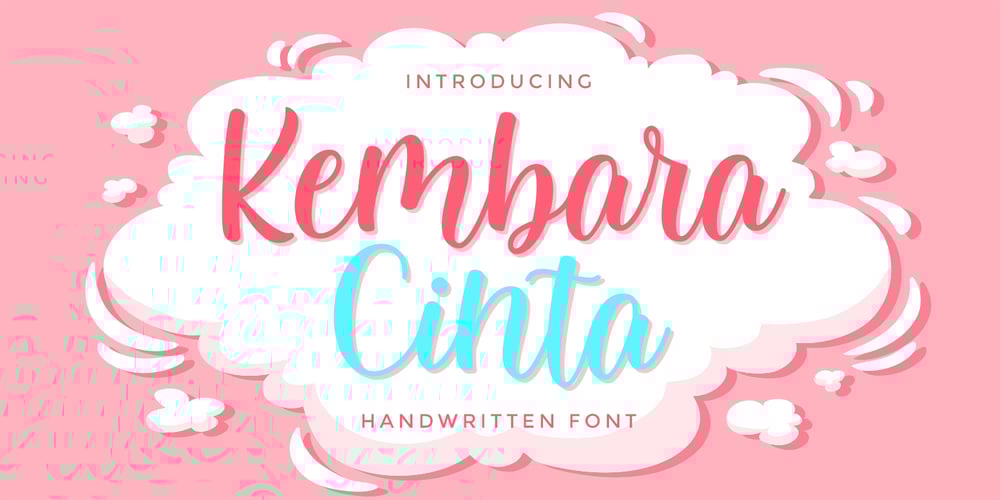
Kembara Cinta Font Family was designed by Fajar Gunawan and published by Fargun Studio. Kembara Cinta contains 1 styles and family package options. Kembara Cinta – a new fresh & modern hand lettered font, decorative characters and a dancing baseline! So beautiful on invitation like handicraft, greeting cards, branding materials, business cards, quotes, posters, and more design concept! Features :Unique ligatures Stylistic sets Basic Latin A-Z and a-z Numbers International Symbols included PunctuationsNeed help? If you need help or advice, please contact me by e-mail “fargunstudio@gmail.com”Thank you for purchased